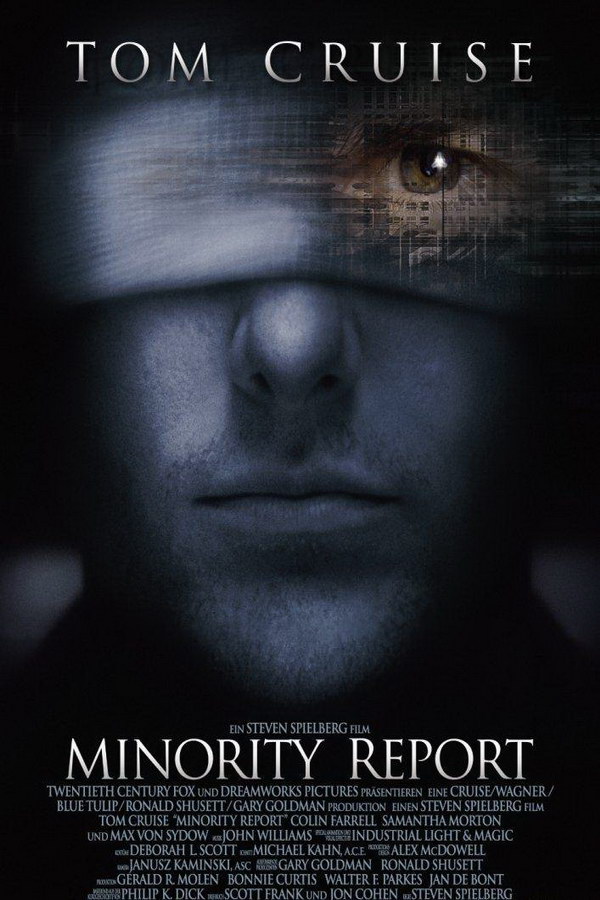
Minority Report Font
ActionMinority Report is a 2002 sci-fi action film directed by Steven Spielberg, based on a story by Philip K. Dick. The movie follows a future society in which a specialized police department uses psychics to arrest criminals before they commit their crimes.